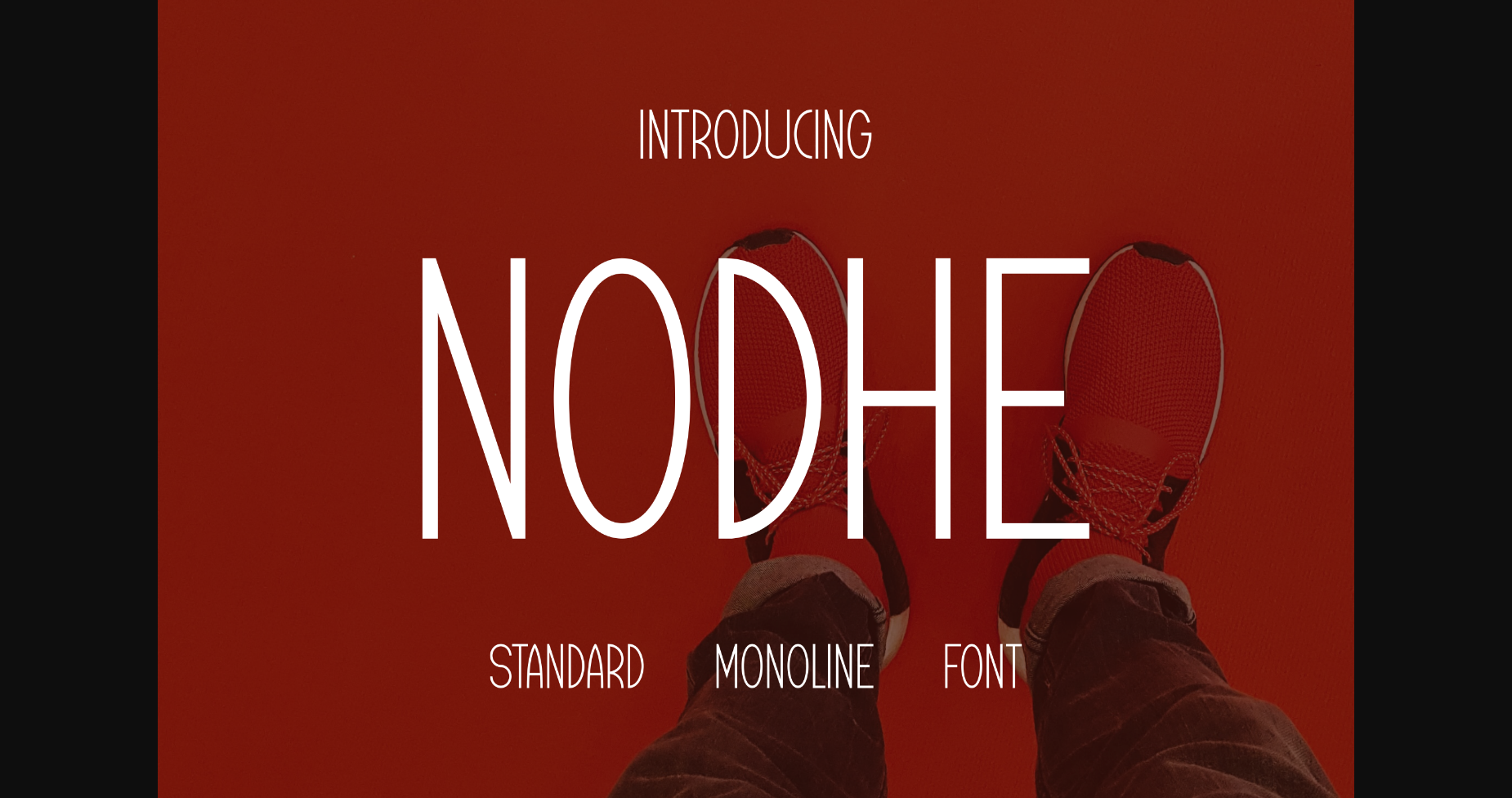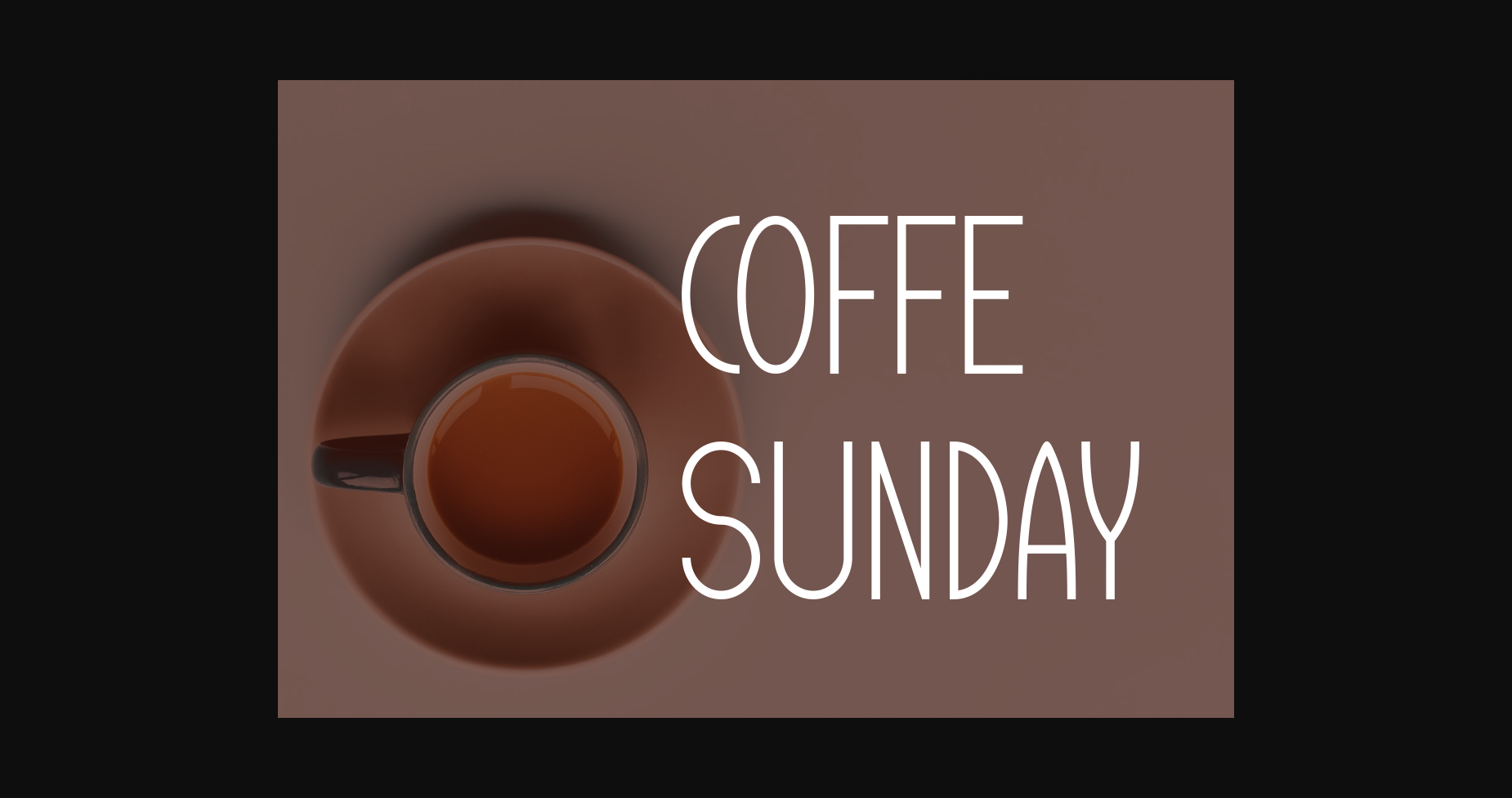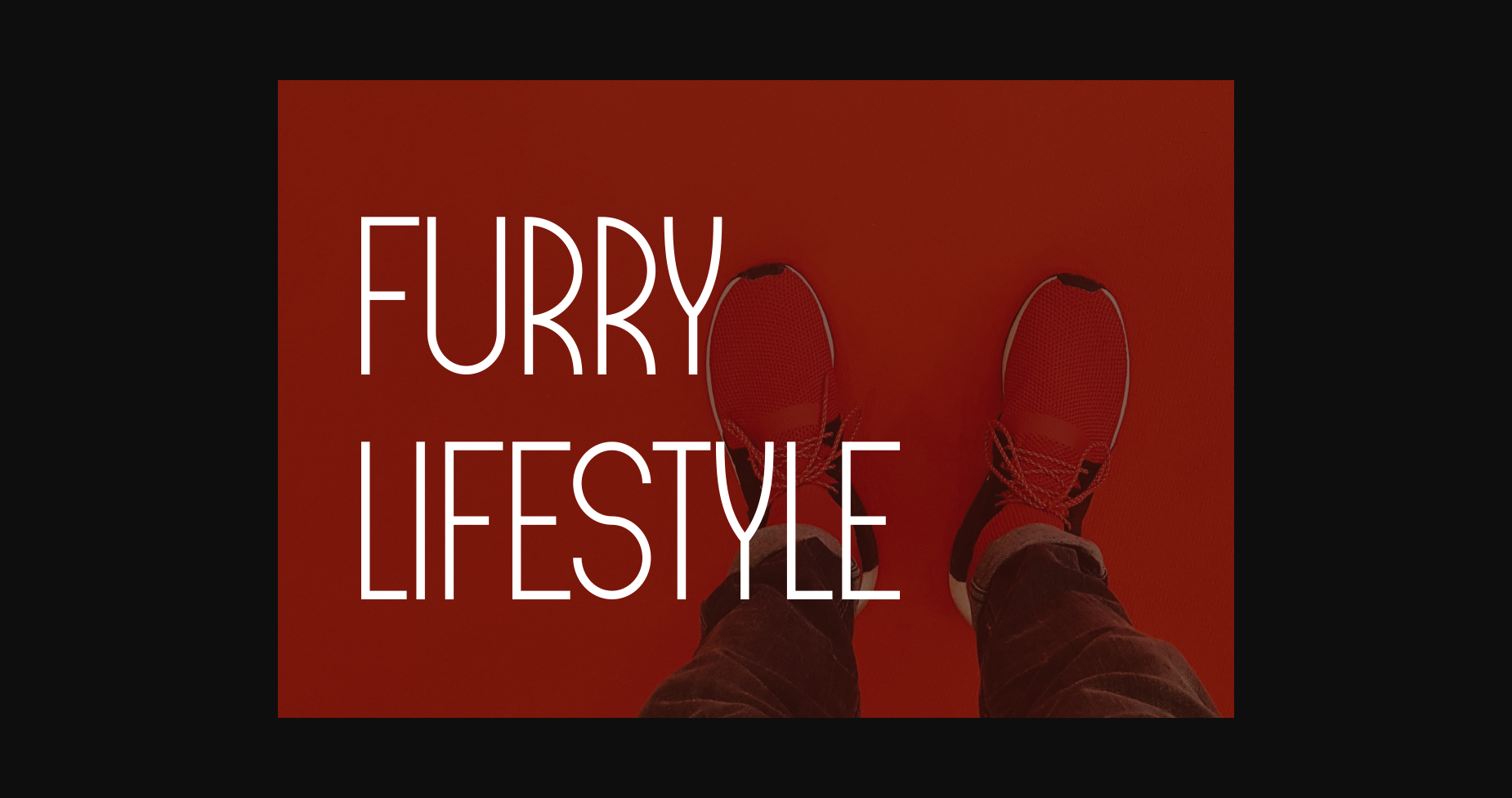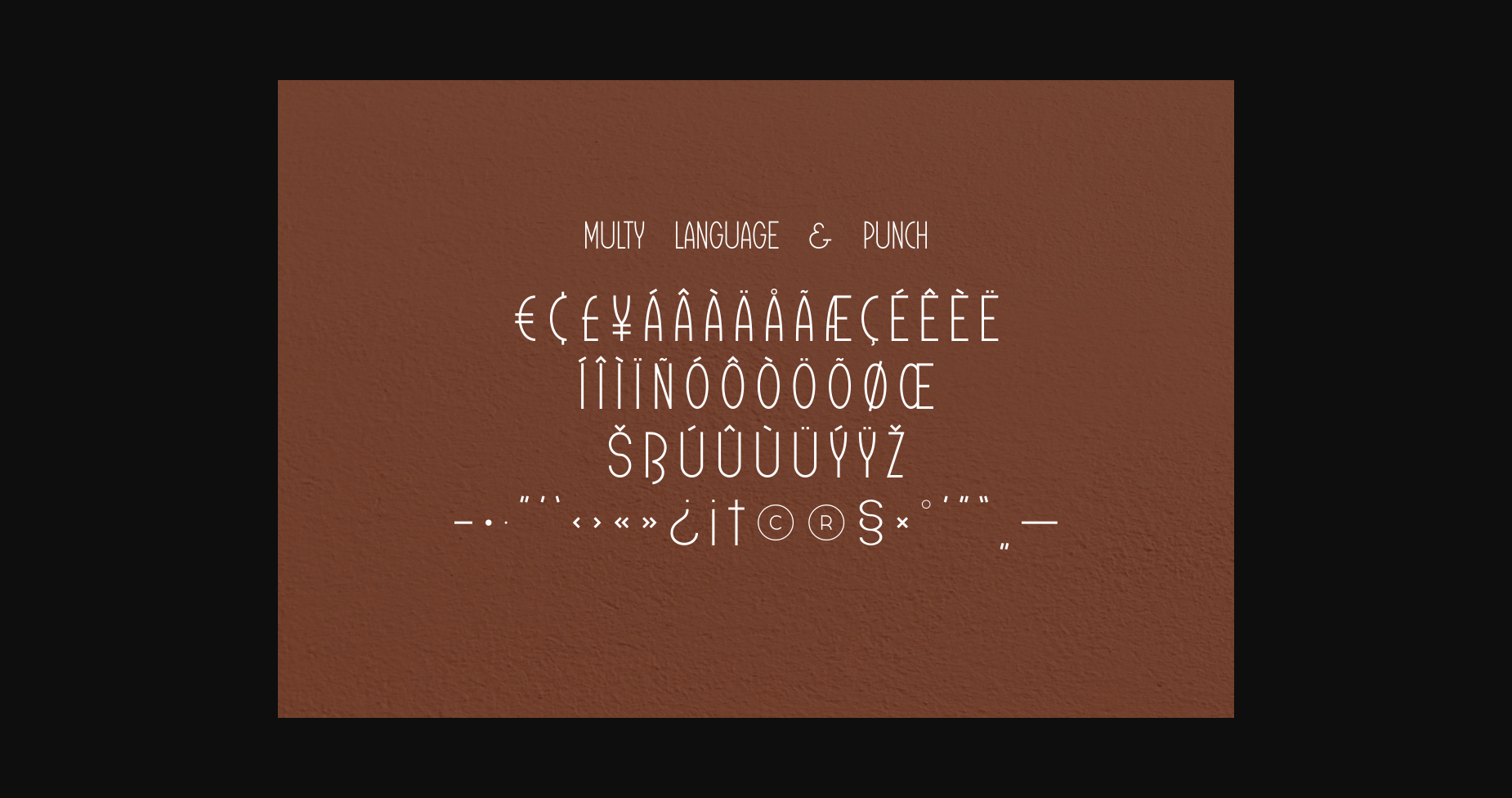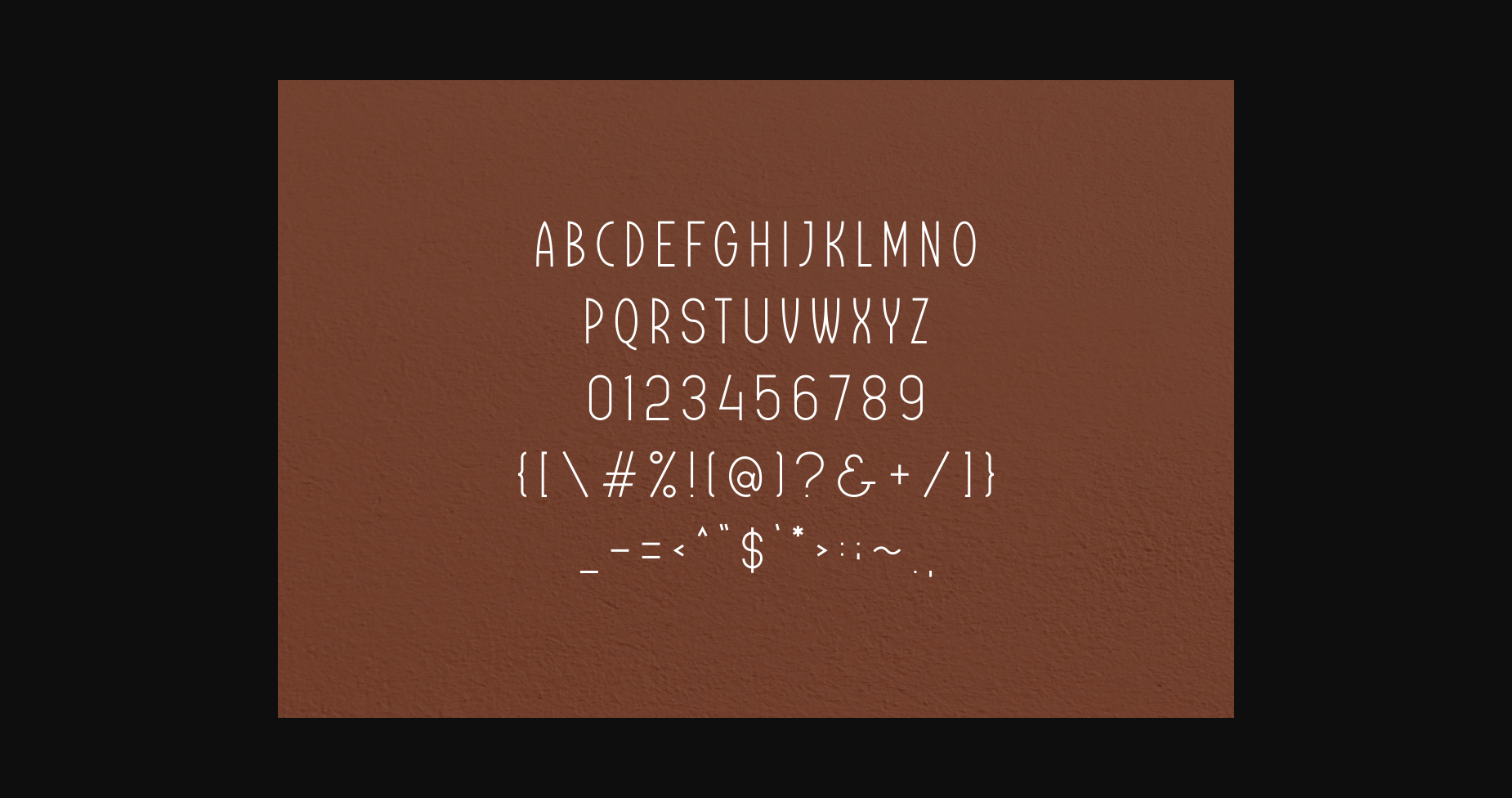
HomeSans Serif FontsNodhe Font Sans Serif Fonts Nodhe Font FacebookXPinterestWhatsApp 1 of 7 ... Nodhe Font Poster 2... Nodhe Font Poster 3... Nodhe Font Poster 4... Nodhe Font Poster 5... Nodhe Font Poster 6... Nodhe Font Poster 7... About Nodhe Font Nodhe is a stylish and cool sans-serif font. No matter the topic, this font will be an incredible asset to your fonts’ library, as it has the potential to elevate any creation. DOWNLOAD NOW People also explored Safarnama Font Orion Sans Font Bellinzo Font Rowena Premya Wedding Minimalist Font Heart Font K26 Preamble Font Spicyholic Font Ipsum Script Font 298 0 TagsNodheNodhe Font Previous articleSanjink Molrener FontNext articleQa Ponds Font LEAVE A REPLY Cancel reply Comment: Please enter your comment! Name:* Please enter your name here Email:* You have entered an incorrect email address! Please enter your email address here Website: Save my name, email, and website in this browser for the next time I comment. Personal Use Free Kids Toys Personal Use Free Read more about this font Feather Script Personal Use Free Read more about this font Eniem Personal Use Free Read more about this font Panaroe Personal Use Free Read more about this font BLOG How to Install and Use Fonts on Windows, macOS, and Web Projects How to Install and Use Fonts on Windows, macOS, and Web Projects Fonts are a crucial part of design and branding. Whether you’re designing a... Top 7 Google Fonts Alternatives for Faster and Privacy-Friendly Web Design (2025) How to Cut Any Font on Cricut: Convert a Font to SVG (Free) Free Fonts Risk: Why Free Fonts Can Be Dangerous for Designers